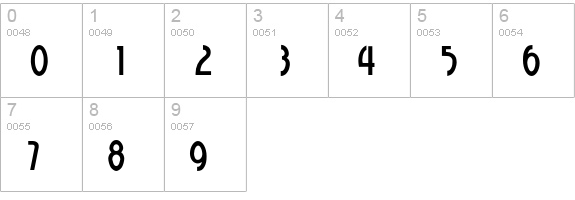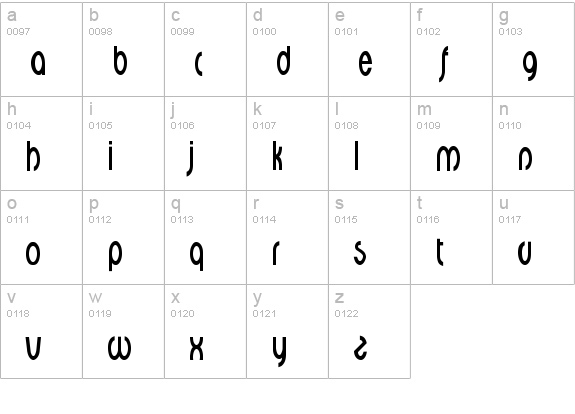
Melanie Font Details
Melanie font is a stunning and versatile typeface that exudes elegance and charm. With its delicate curves and graceful strokes, Melanie is perfect for a wide range of design projects, from invitations to branding to packaging. This font adds a touch of sophistication and class to any text it graces. What makes Melanie font even more appealing is that it is available for free download at FontsMarket.com. This means that you can easily access this beautiful font without any cost, making it a great choice for both personal and commercial use. Don't miss out on the opportunity to enhance your designs with the timeless beauty of Melanie font. Download it today and let your creativity shine!